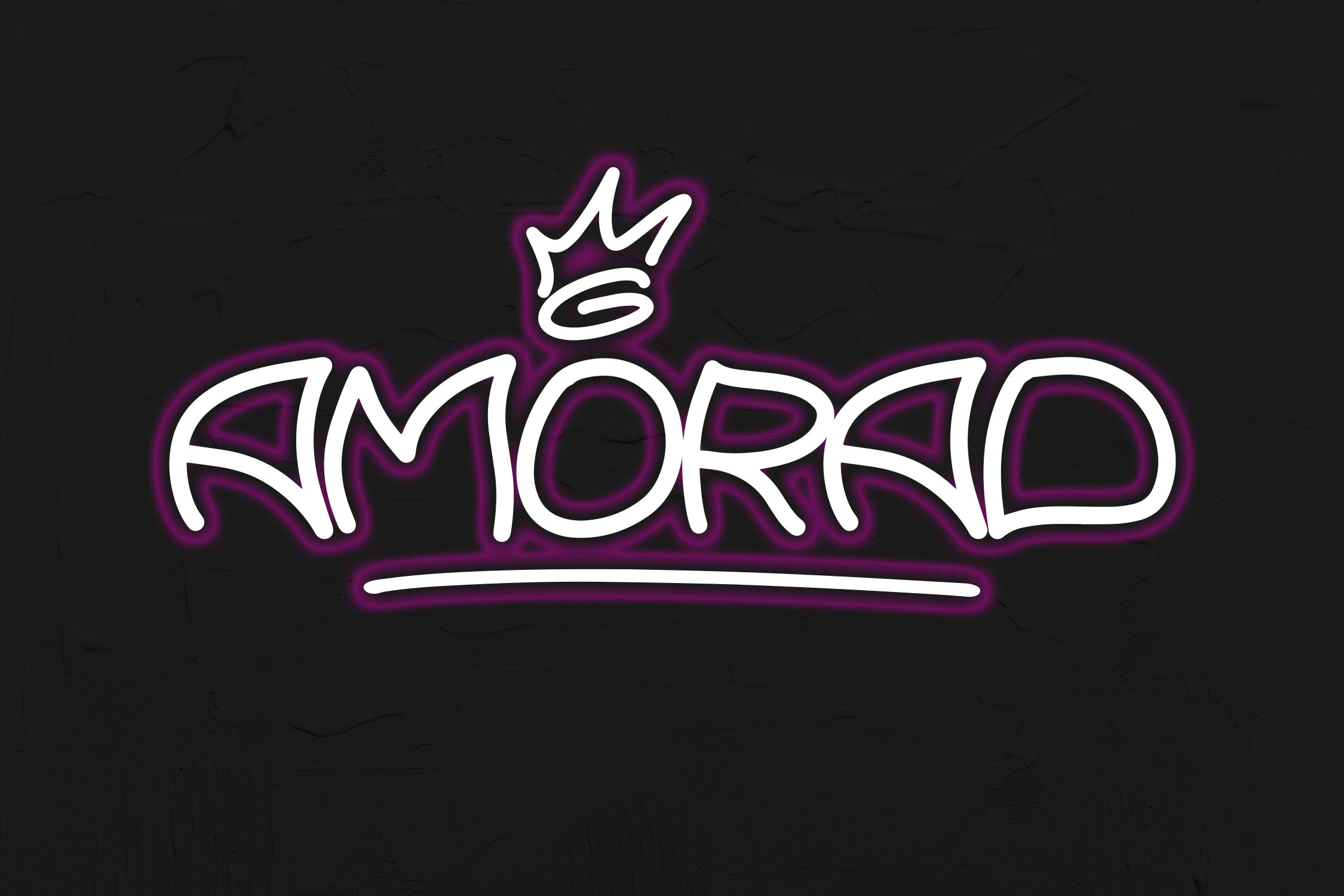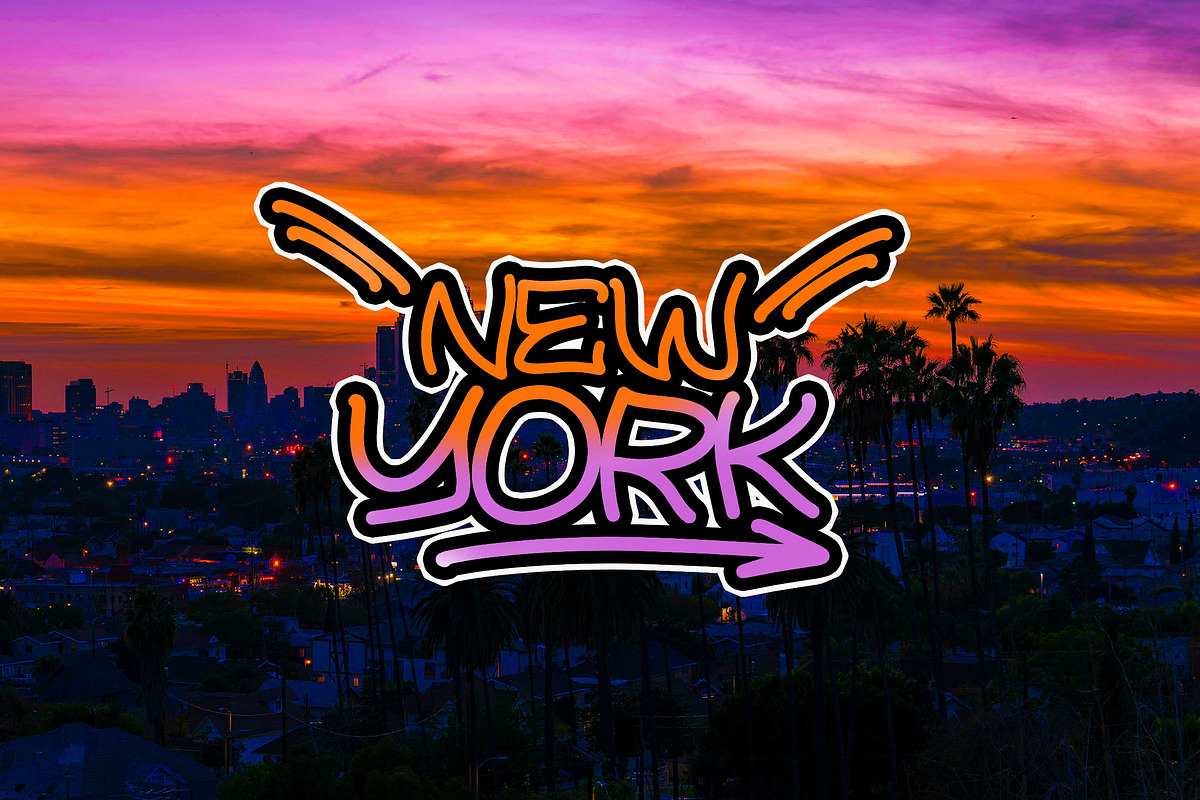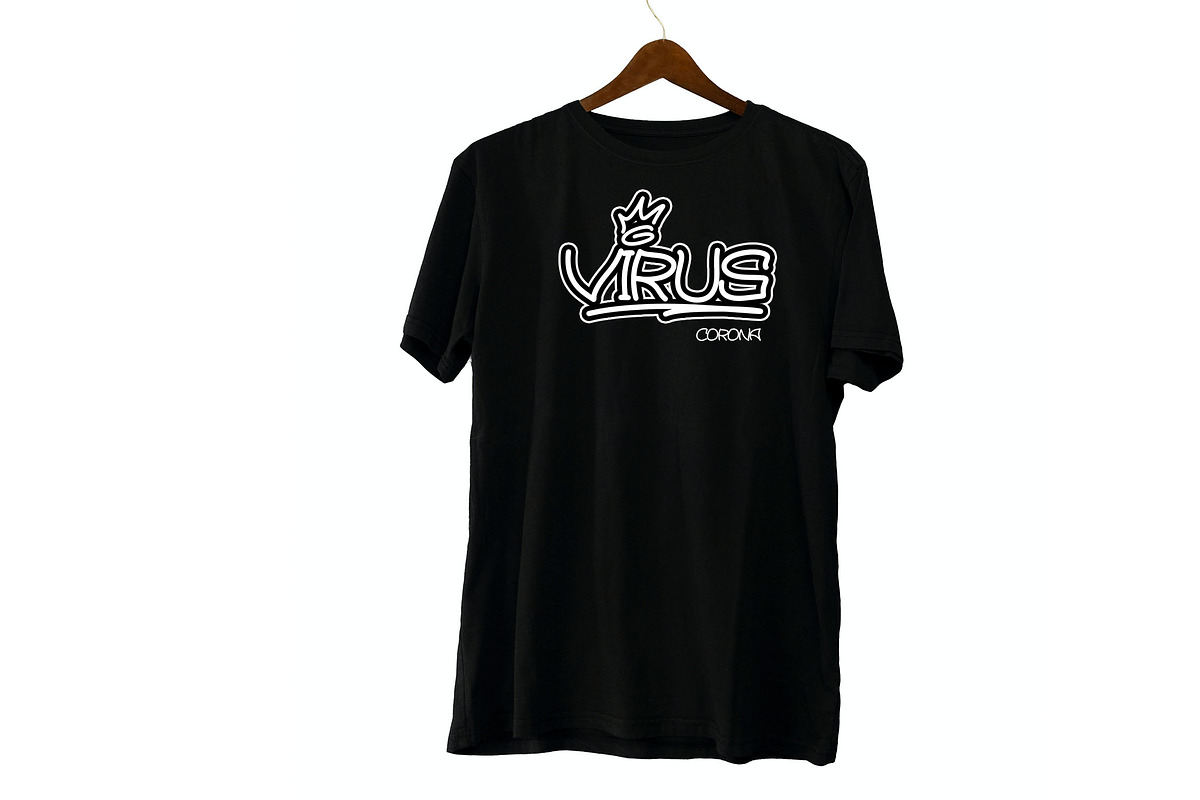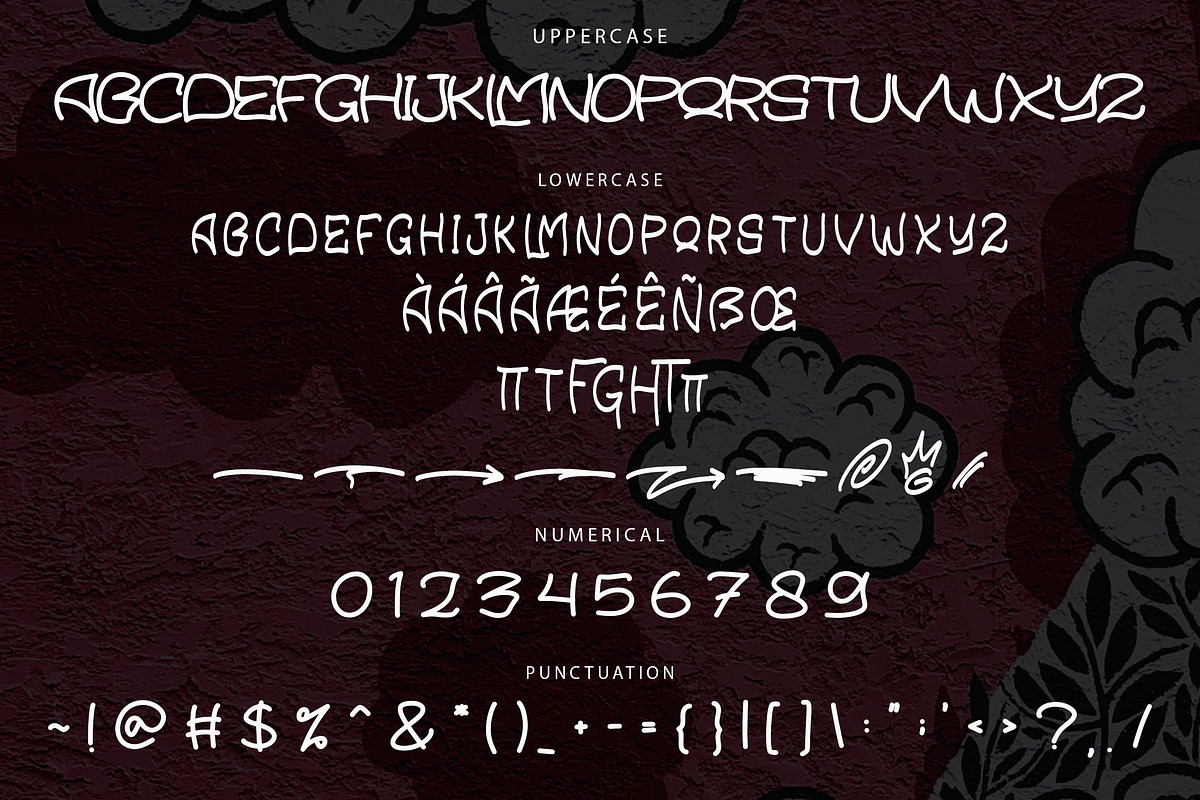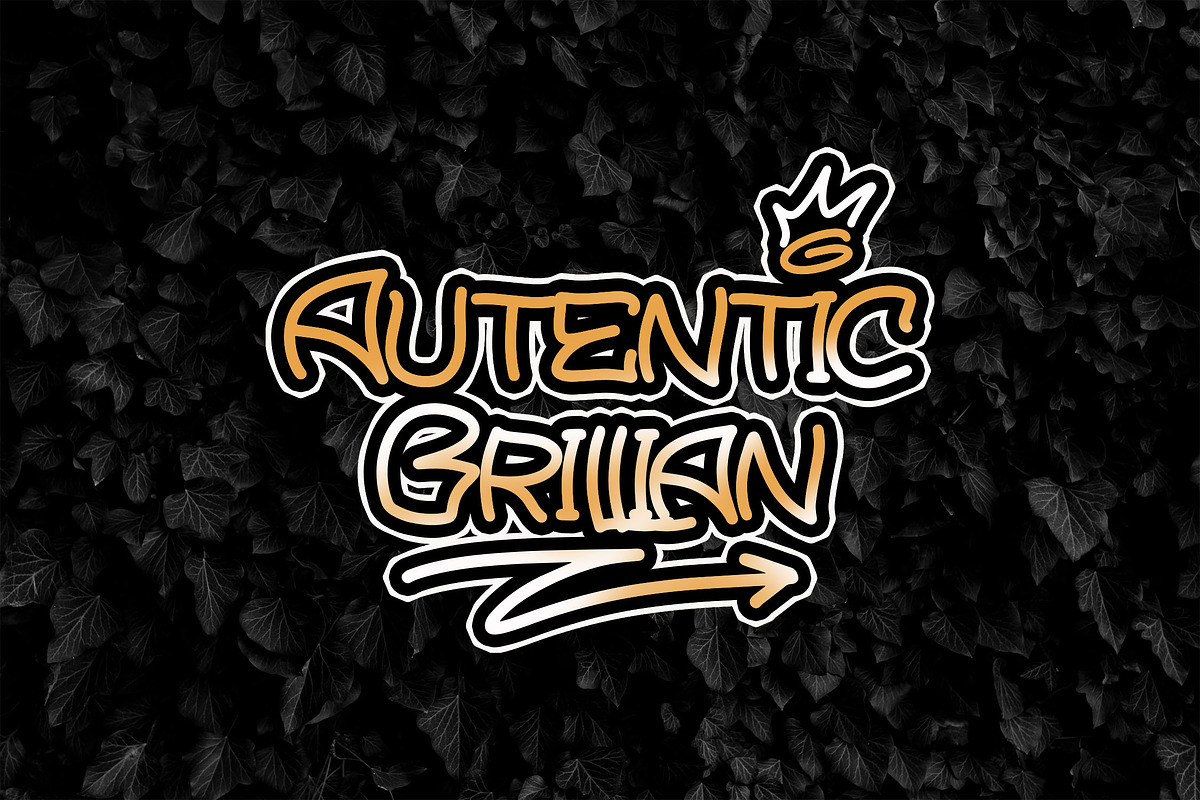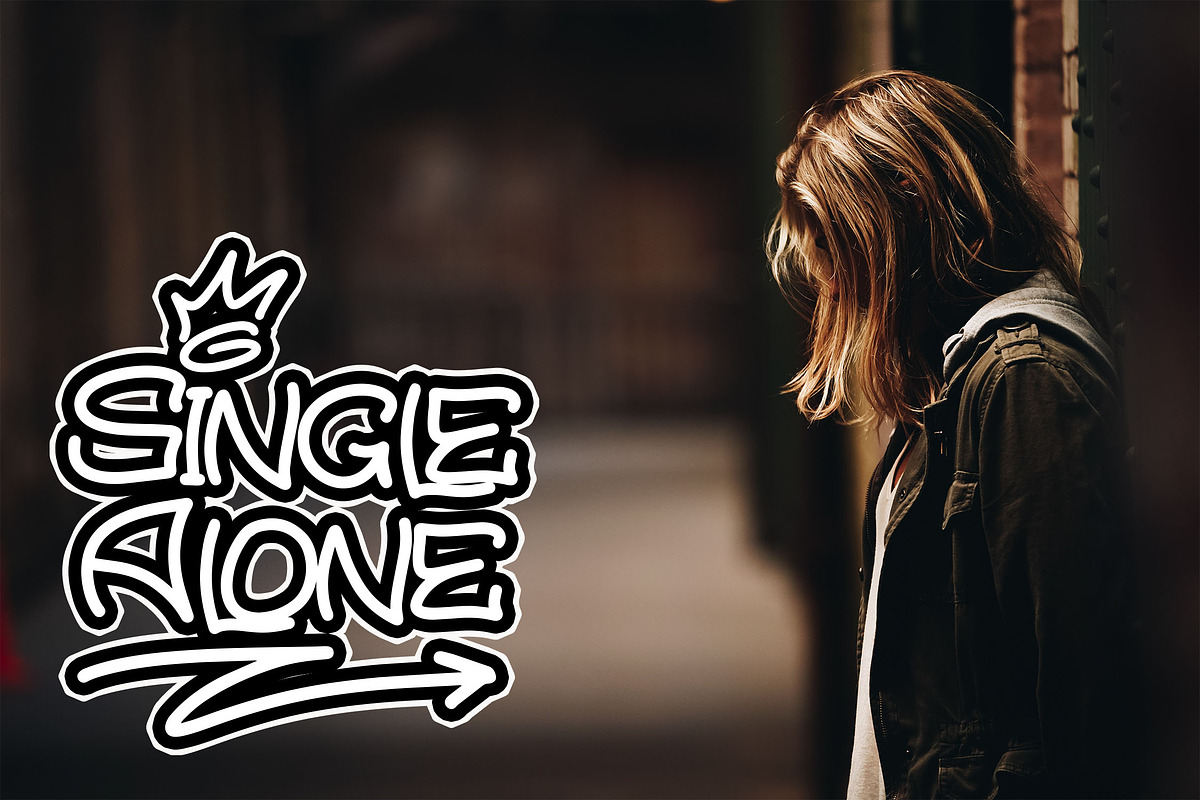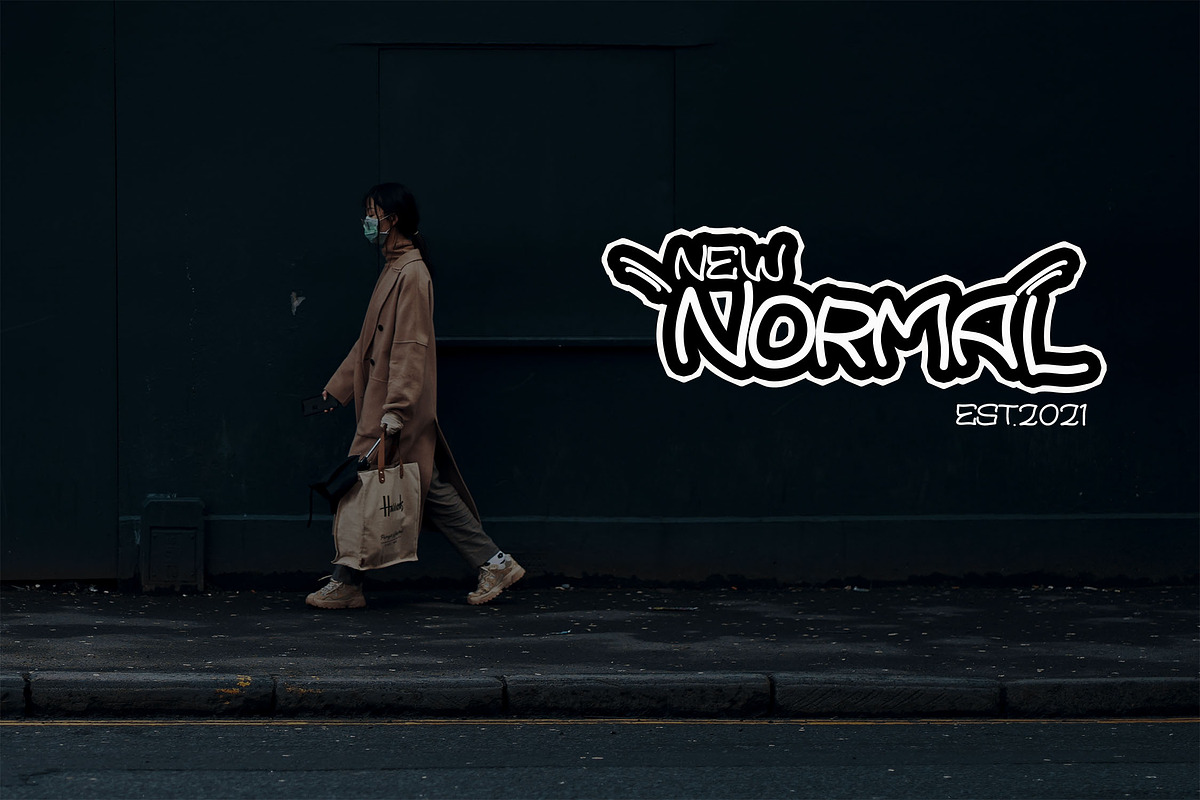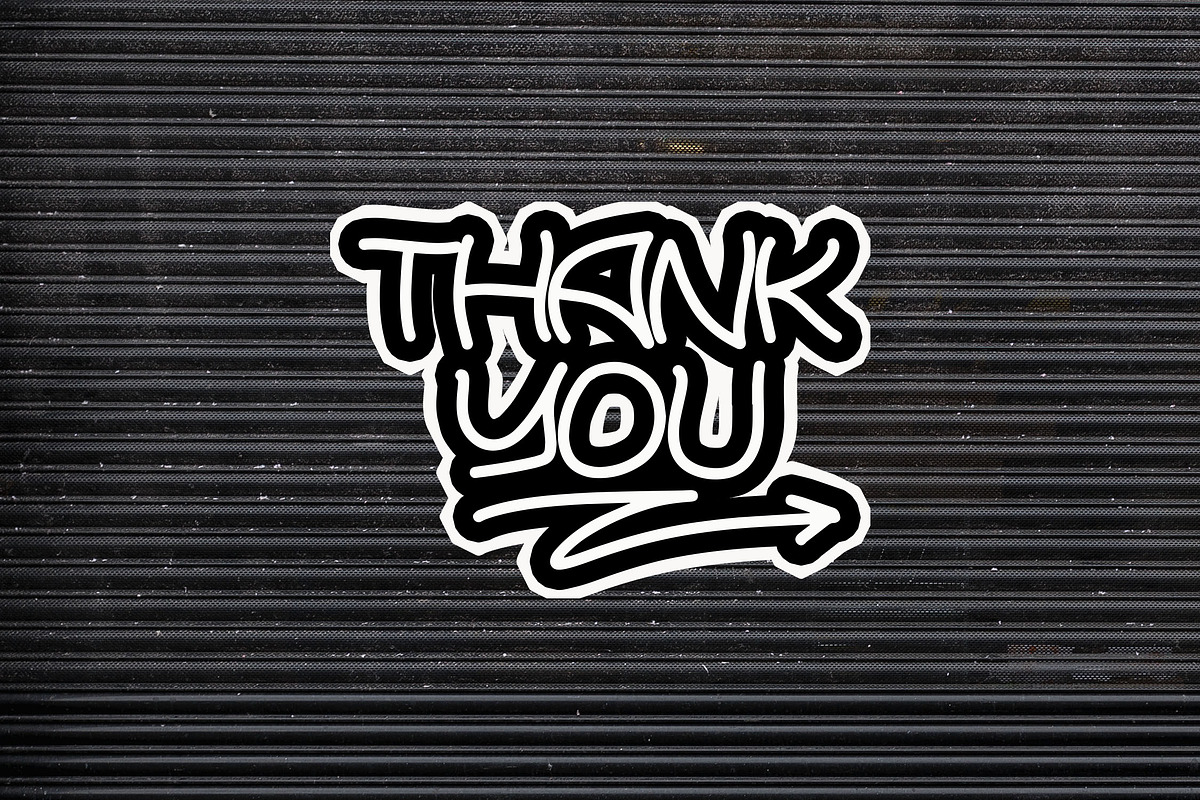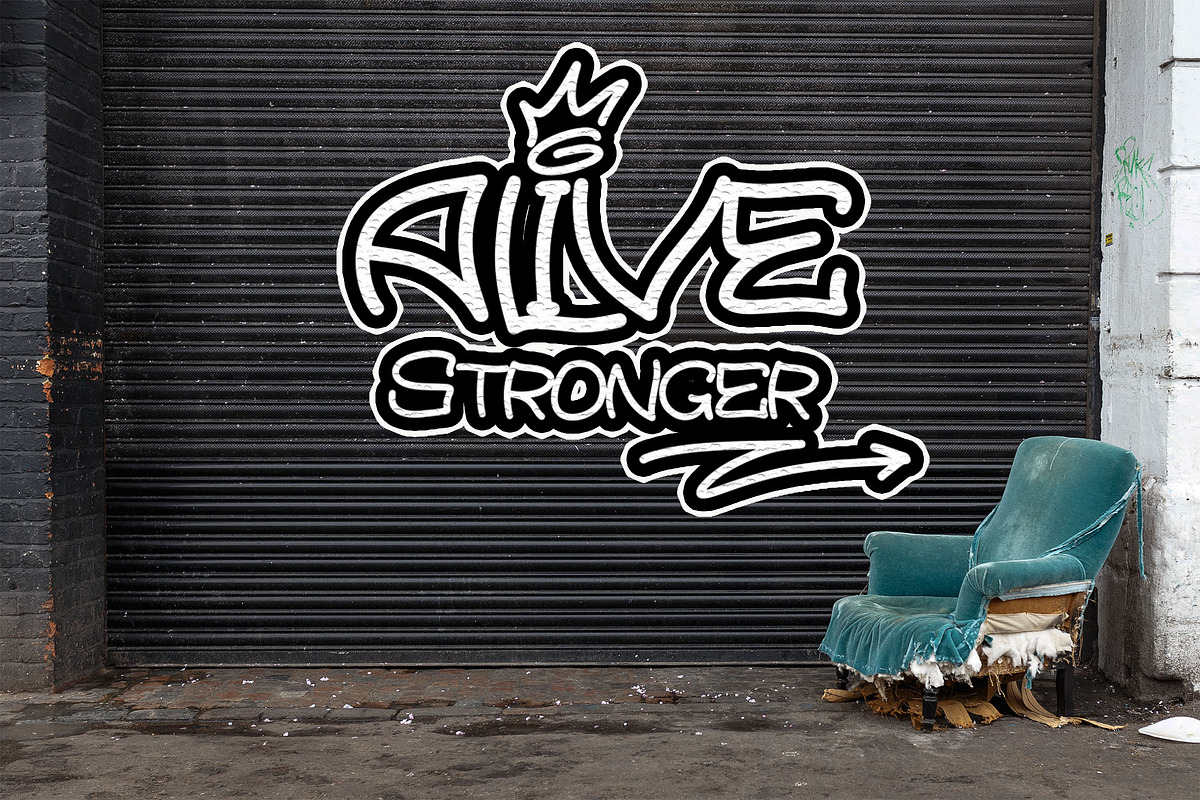
AMORAD Graffiti Font
AMORAD is a bold graffiti font with a natural handbrush style, designed to add a fresh, urban edge to your designs. Its unique character shapes bring raw, expressive energy, making AMORAD perfect for logos, streetwear, posters, and any project needing a creative and impactful look.
- Ligatures: Smooth, connected letters for authentic graffiti style.
- Stylistic Alternates: Customize text with alternative character options.
- Swashes: Add expressive strokes for a bold effect.
- Multilingual Support: Compatible with various languages and alphabets.